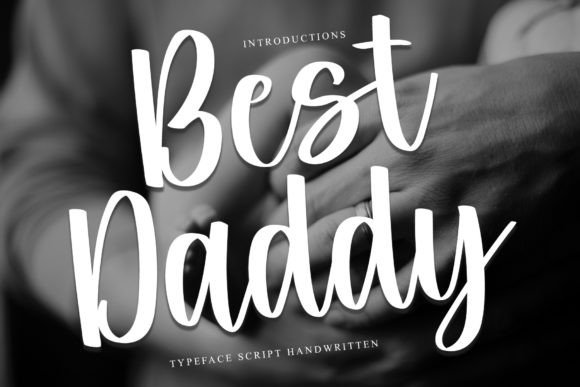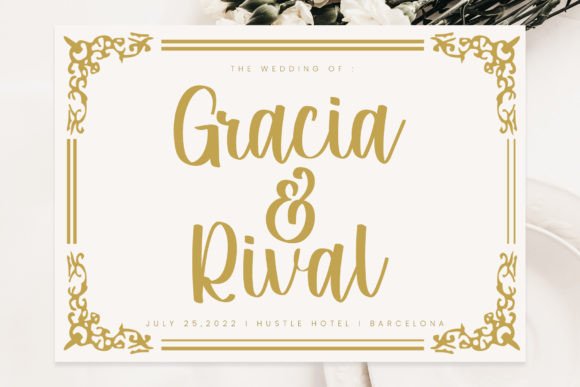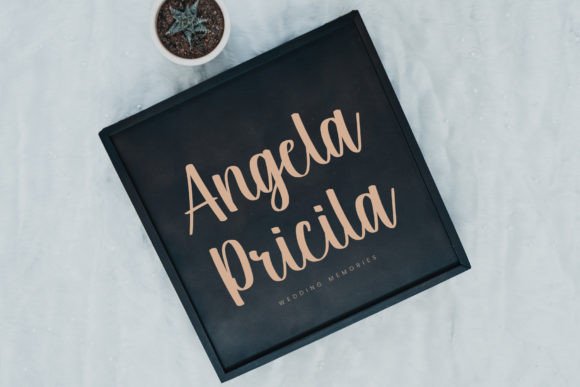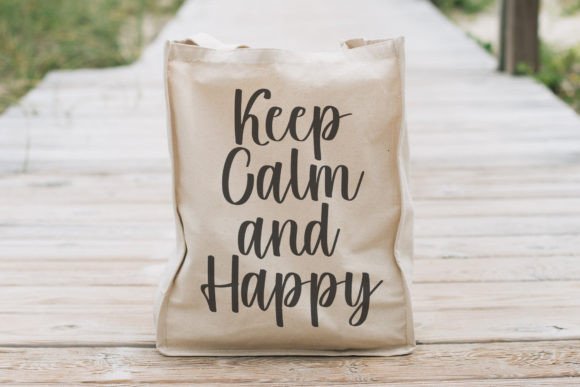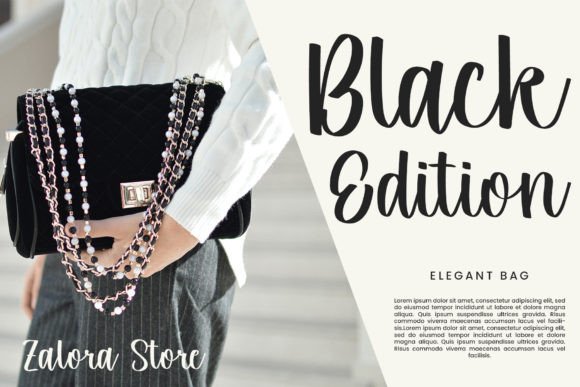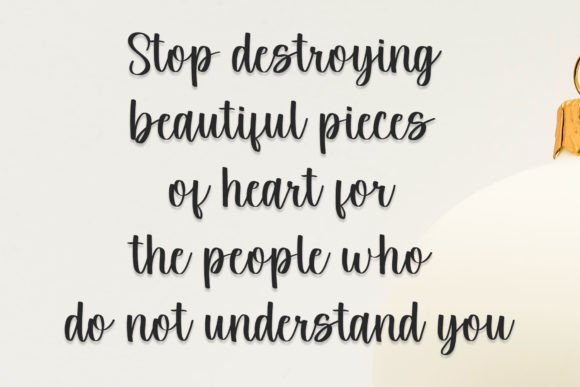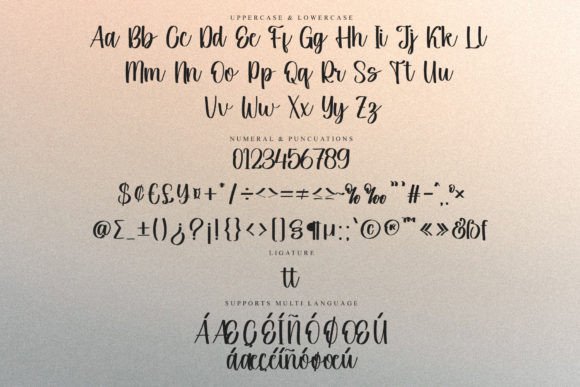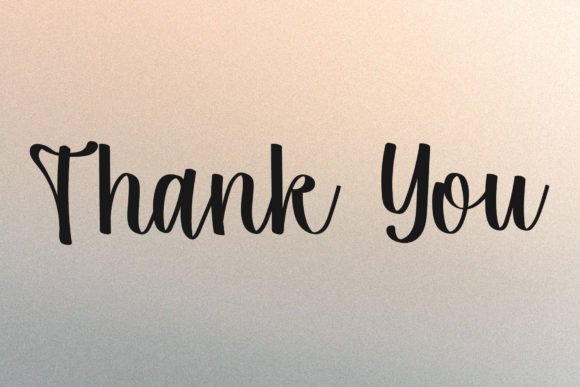
Best Daddy Font
About Best Daddy Font
“Best Daddy is a beautiful and chic handwritten font that exudes a sophisticated and elegant touch. With its stylish alternates and ligatures, this font becomes the perfect match for any project, adding a level of refinement and style to your designs.
The allure of Best Daddy lies in its chic and beautifully crafted script, where each letter is designed with precision to achieve a sense of sophistication. The stylish alternates and ligatures contribute to the font’s versatility, making it well-suited for a variety of creative applications.
Whether you’re working on branding, invitations, or any other design project, Best Daddy stands out as a font that elevates the overall aesthetic. Its chic and elegant style ensures that your text carries a sense of class and modernity.
Imagine Best Daddy enhancing your projects, bringing a beautiful and chic touch to your text. Its stylish alternates become a defining element that sets your designs apart, creating a visual experience that resonates with sophistication and elegance.
As you explore the nuances of Best Daddy, you’ll discover its potential to transform ordinary projects into visual masterpieces. Let it be the font that adds a touch of chic style to your creative vision, making your designs stand out with a sophisticated handwritten aesthetic. With Best Daddy, every stroke becomes a brushstroke of beauty, making it an invaluable asset for designers seeking a chic and versatile handwritten font.”